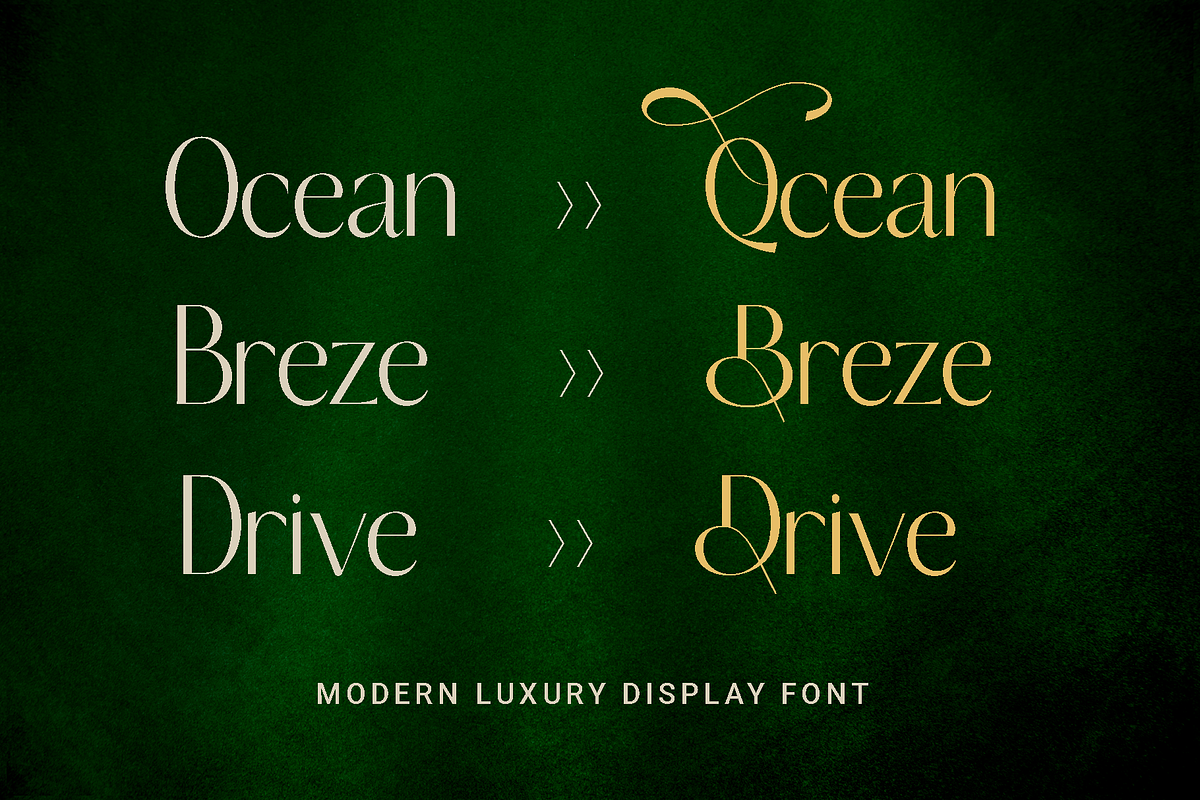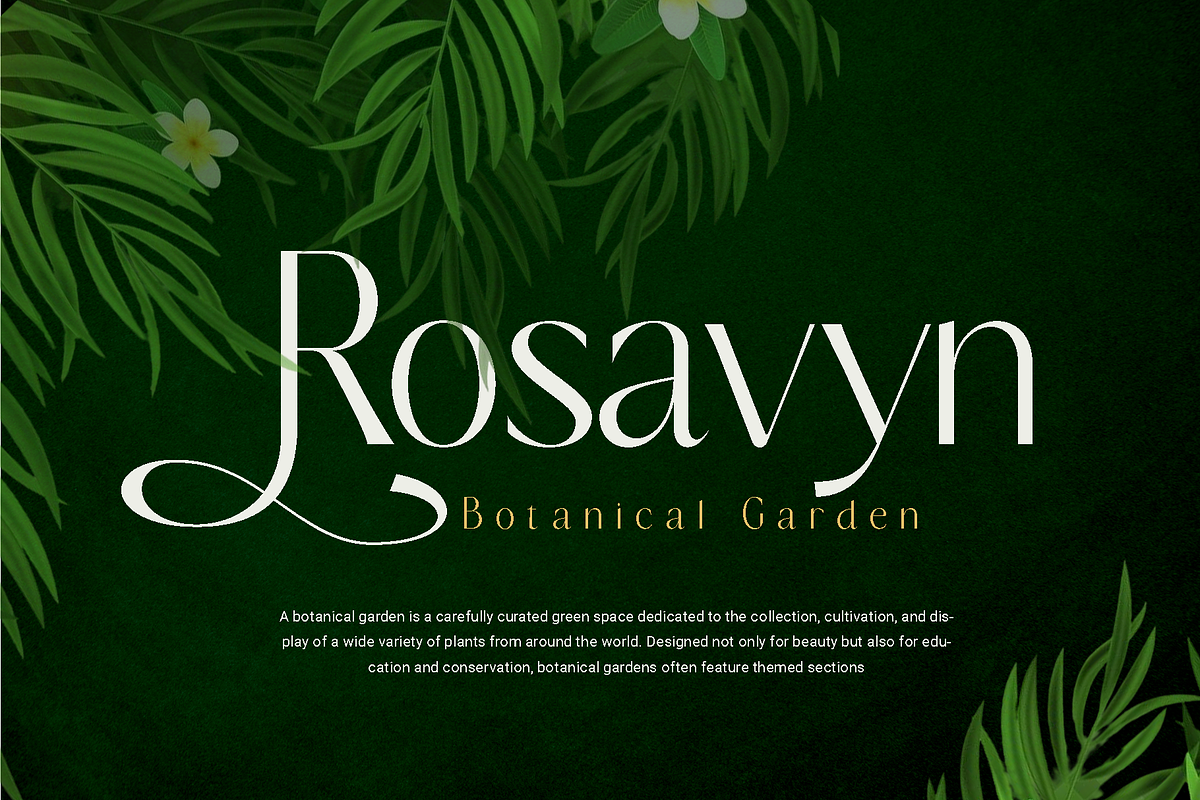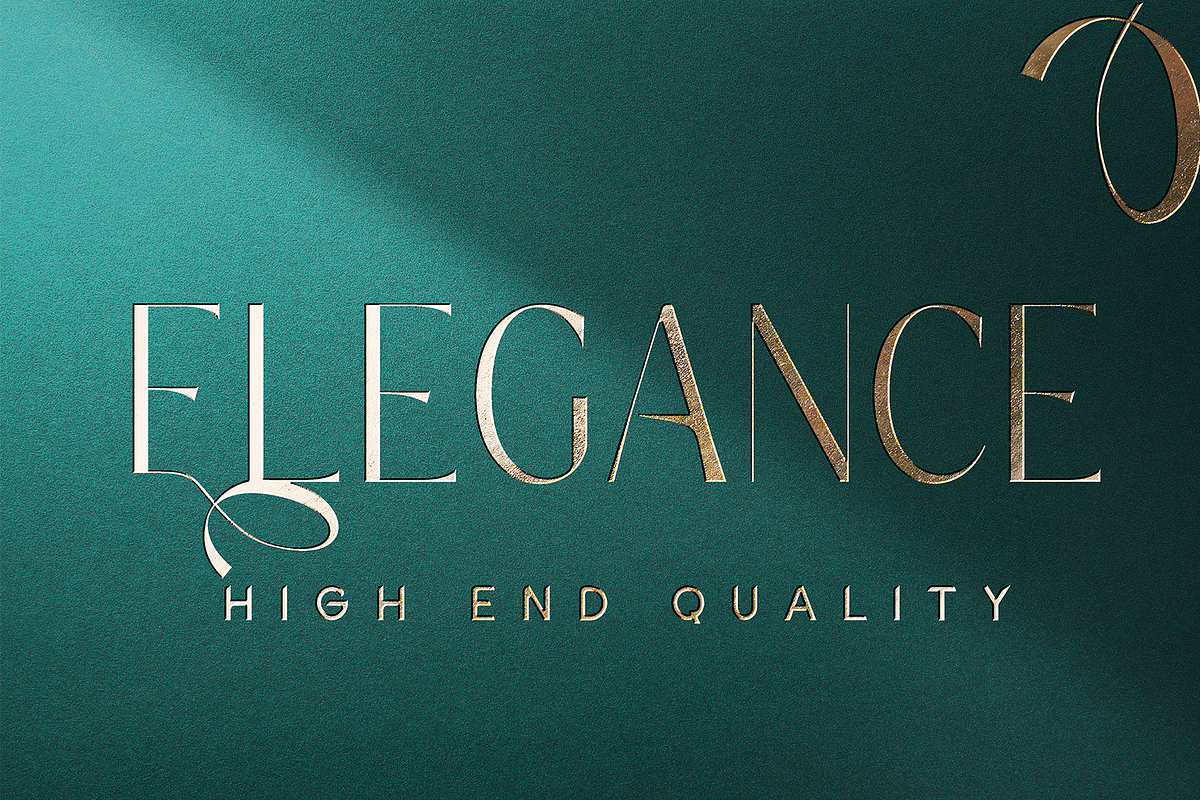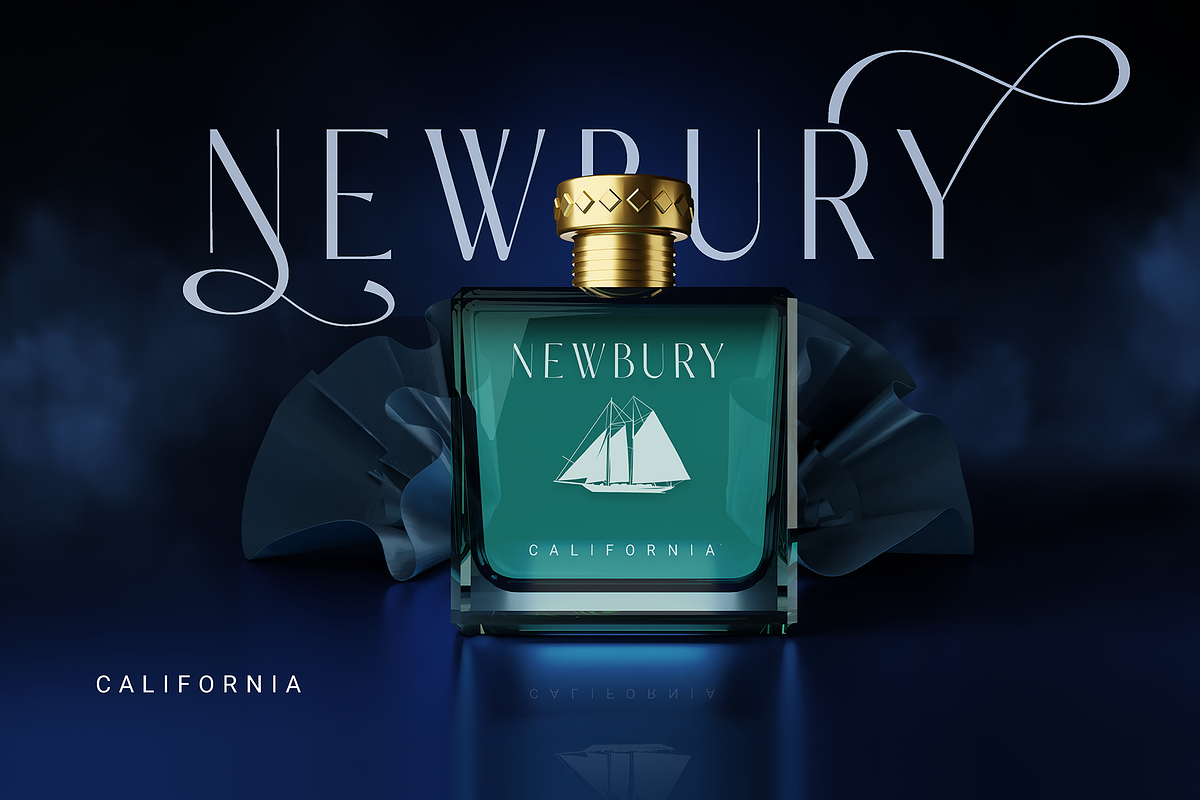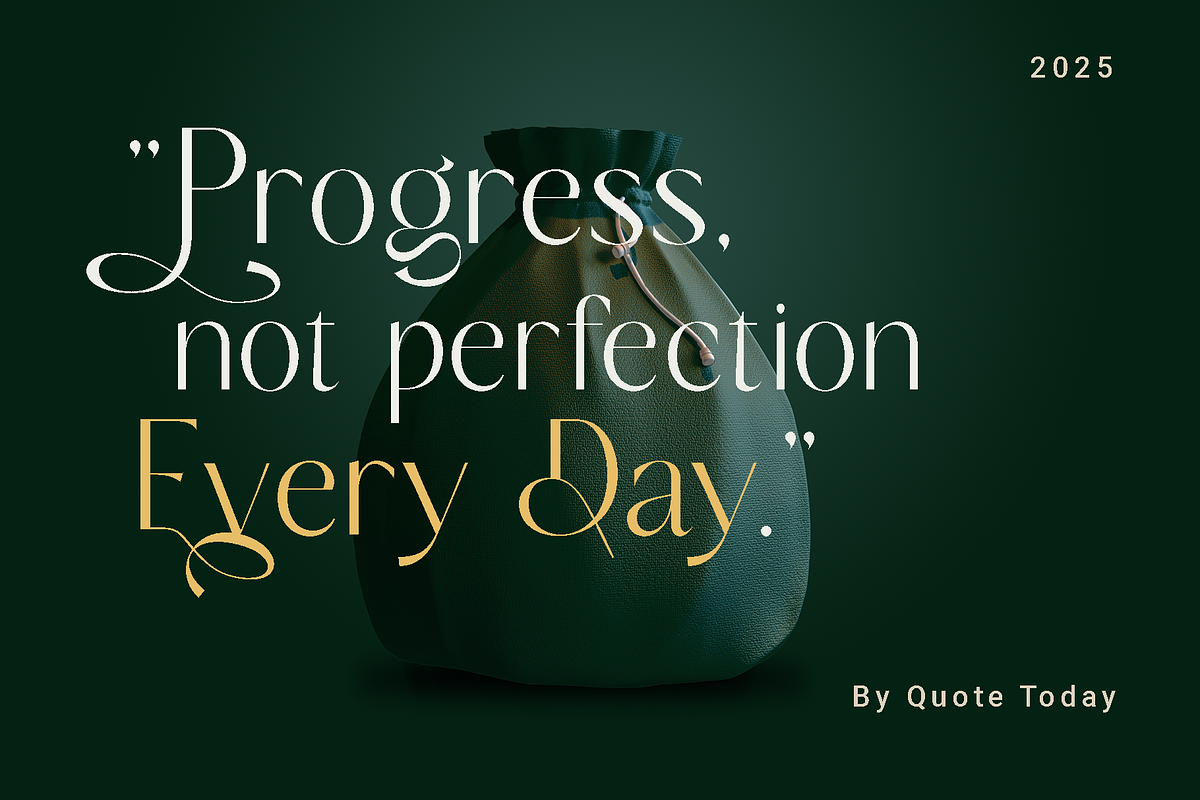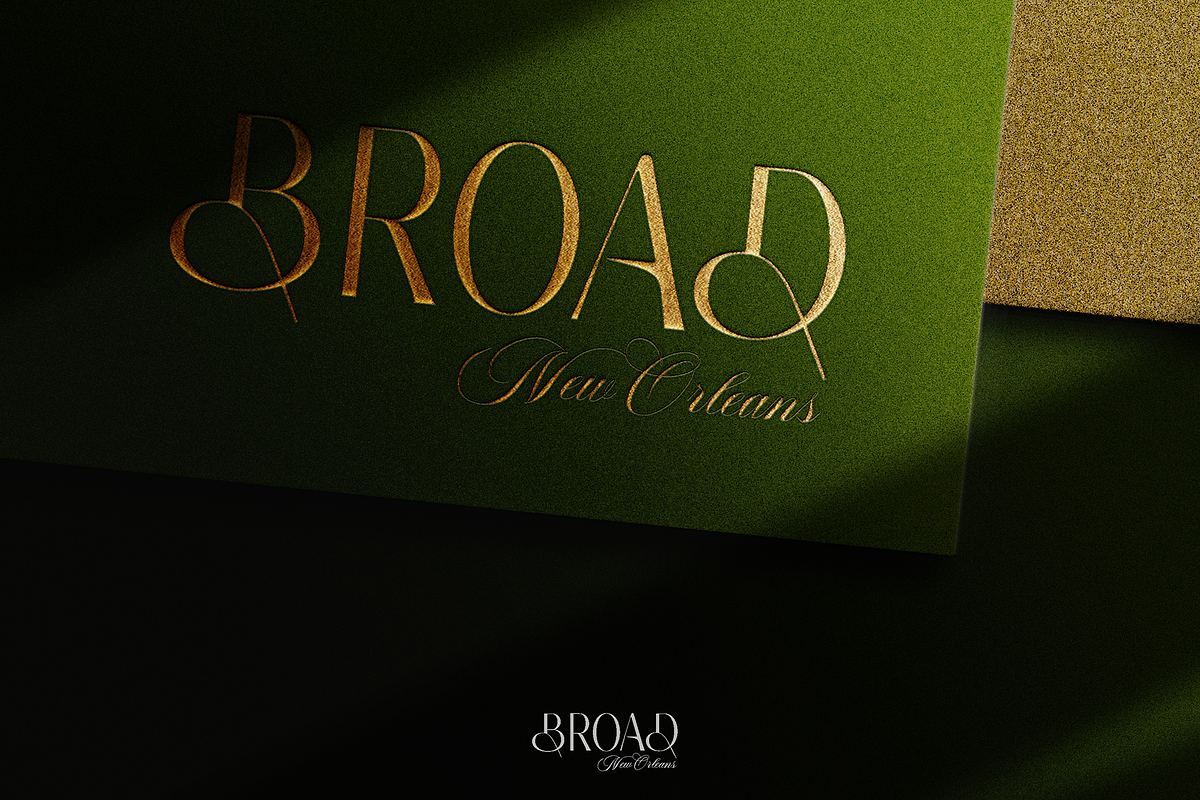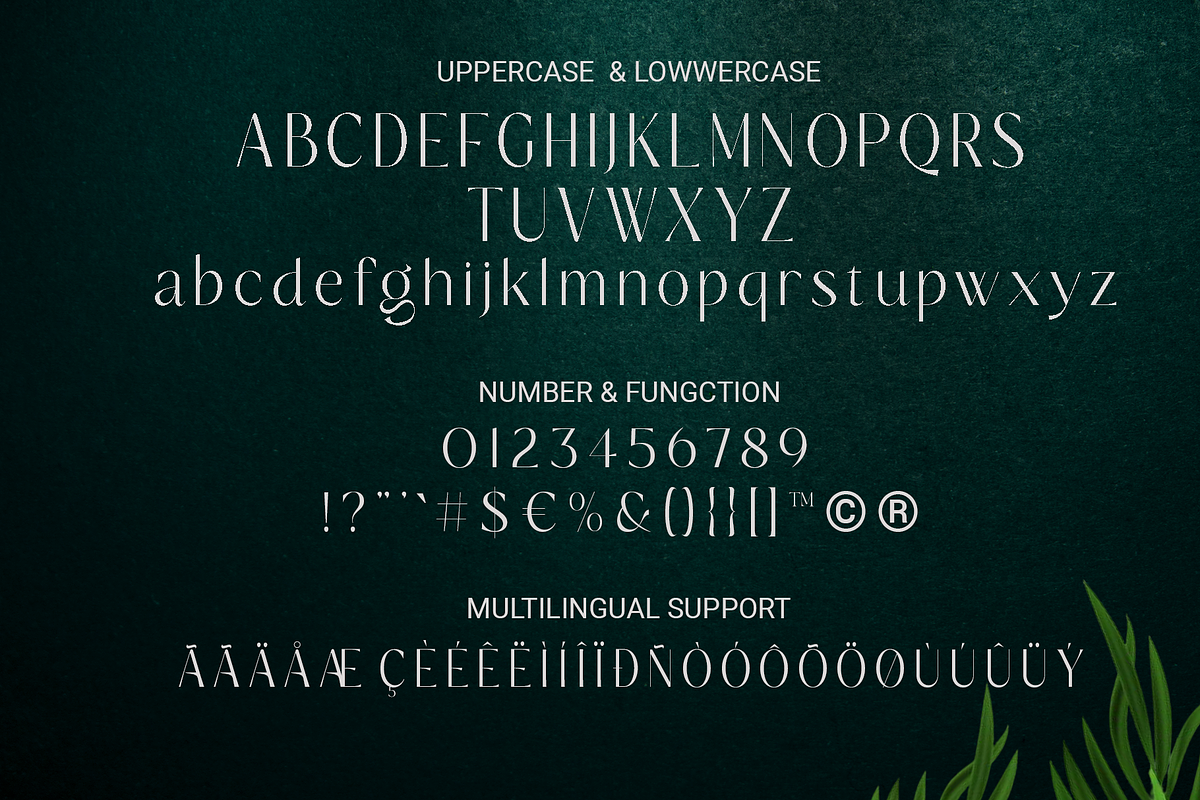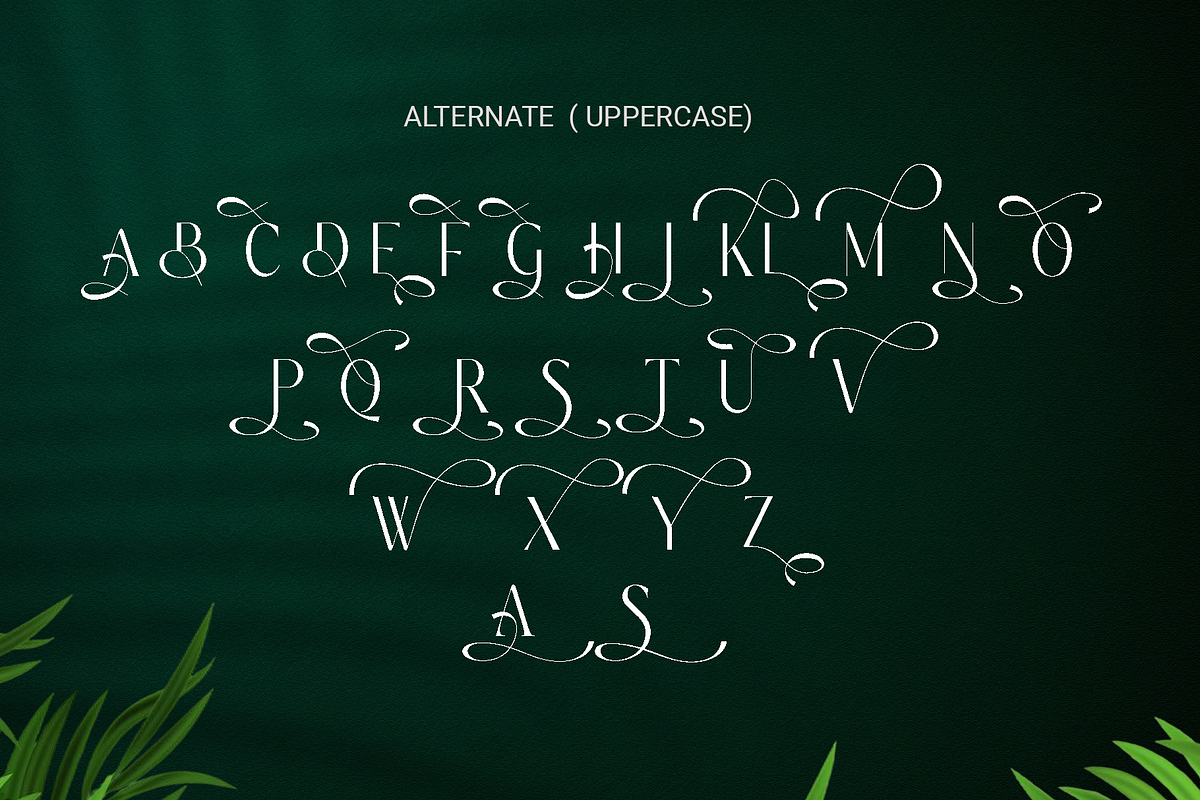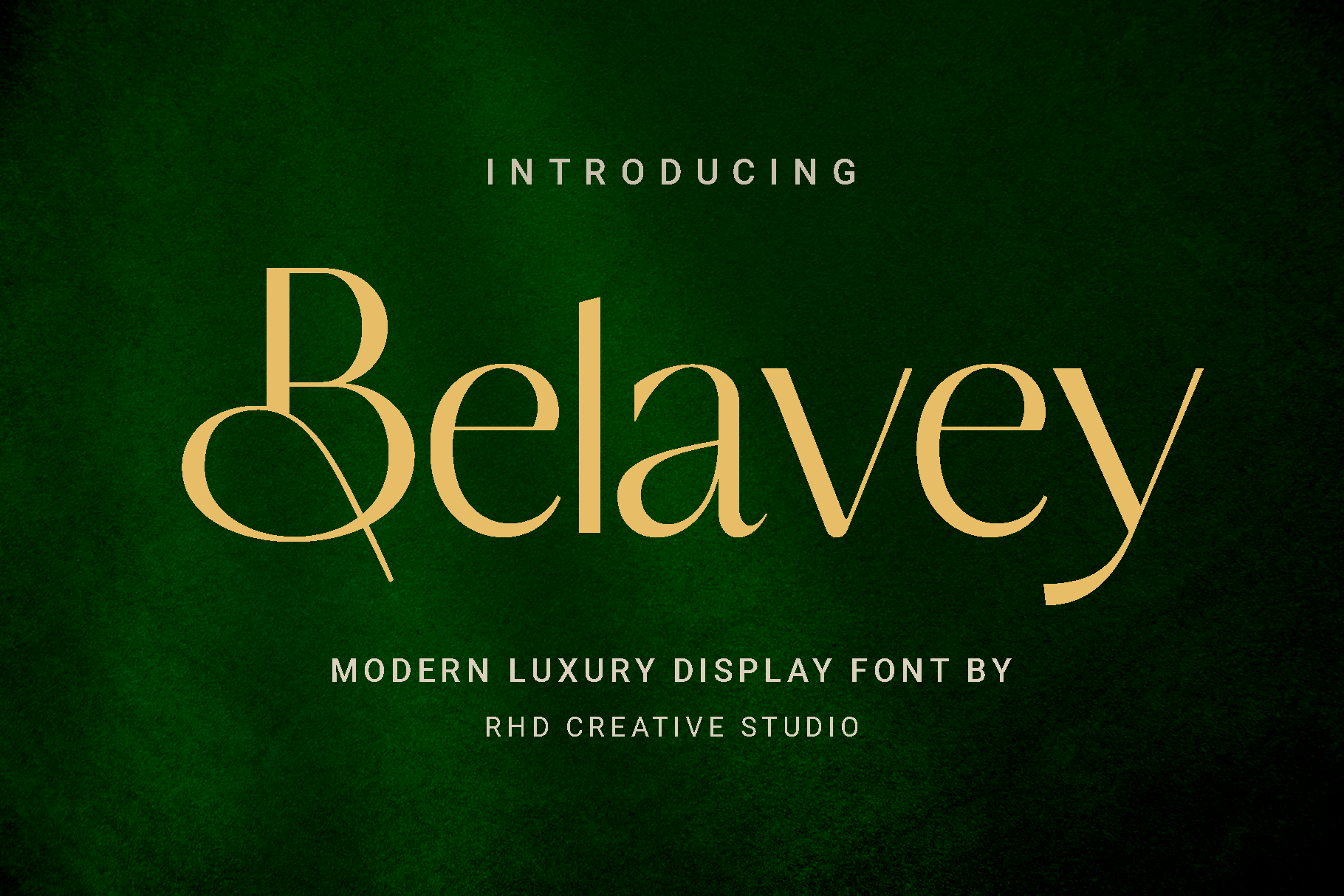
Belavey Modern Luxury Display Font
Hello everyone, I would like to introduce Belavey Modern Luxury Display Font.
Belavey Modern Luxury Display Font with Handmade character. Belavey Modern Luxury Display Font, Modern font to make your design project stand out! Belavey is a perfectly choice for any creative endeavor, creating, modern, chic, lifestyle design such as logotype, title, cover, branding, invitations, wedding designs, display and magazine, social media posts, advertisements, printed quotes, product packaging, corporate brand, product designs, labels, photography, watermarks, special events and any other project with modern touch.
– Uppercase and Lowercase letters
– Numbering and Punctuations
– Alternate
– Multilingual Support